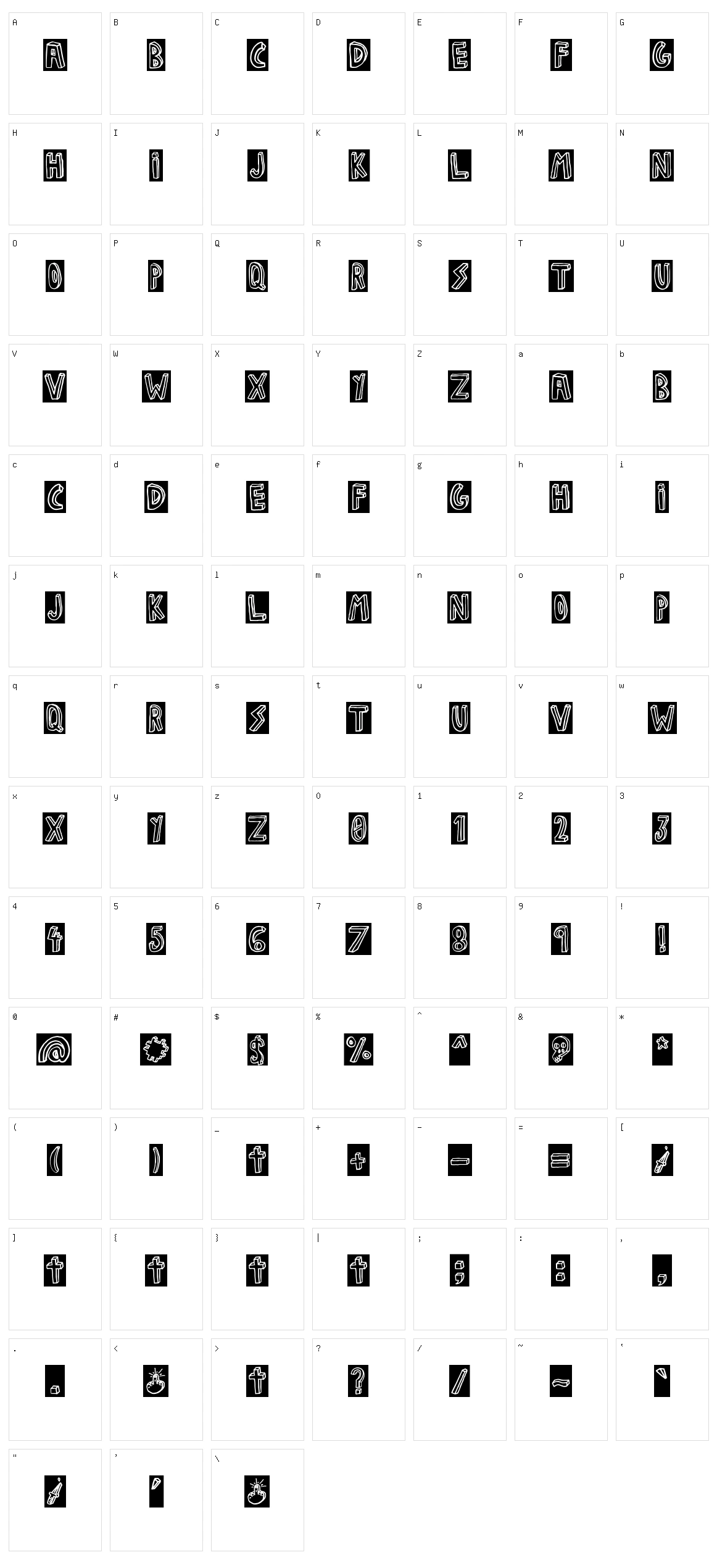
The free font Jalisco Company is carefully designed by Woodcutter, showcasing a thoughtful balance of creativity and usability and falls under the Cartoon font style. When you download the ZIP file, it contains only 70.99 KB of font files, making it lightweight and quick to download. Please review the license details below to understand permitted usage and distribution rights. If license information is not available, we recommend using this font for personal projects only or contacting the author directly for commercial usage permissions.